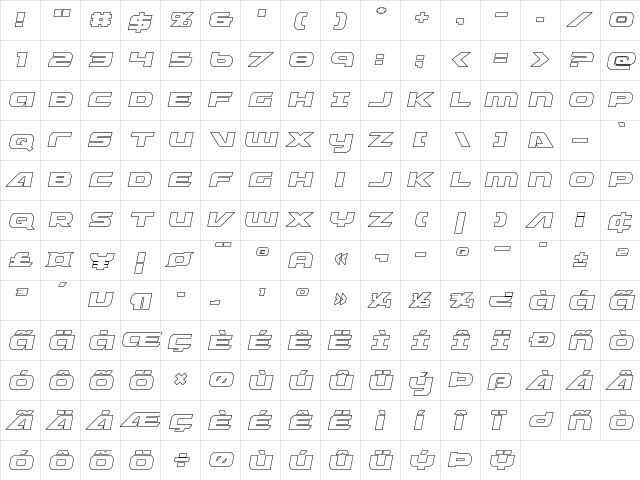
Graymalkin Outline Outline
Design Context for Graymalkin Outline Typeface
Graymalkin Outline brings ornamental detail and strong personality to headlines and identities, where visual impact matters more than quiet functionality.
Font Pairing: Pair with a clean neutral sans-serif for body copy to let Graymalkin Outline's character lead without overwhelming the composition.
Pro Tip: Use Graymalkin Outline exclusively at display sizes — it was designed to be seen, not read at length. Let a neutral companion handle body copy.